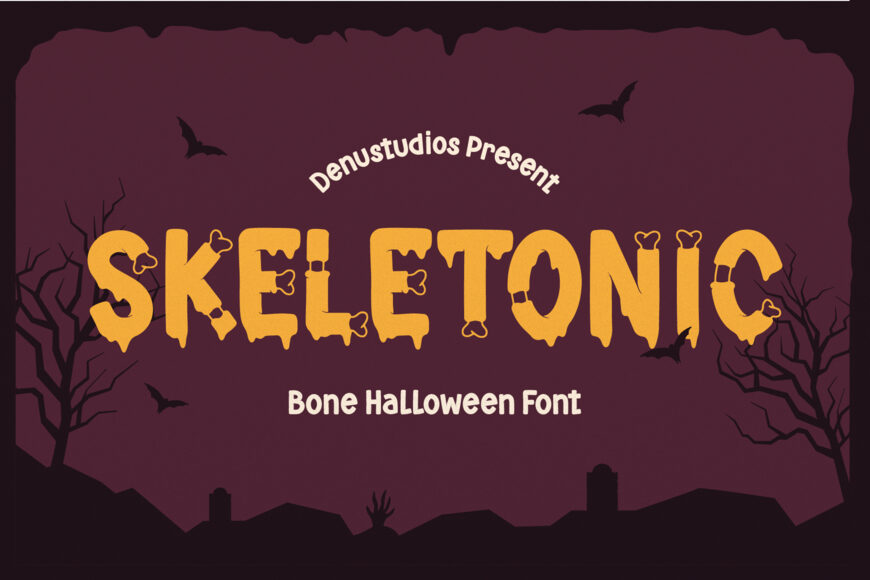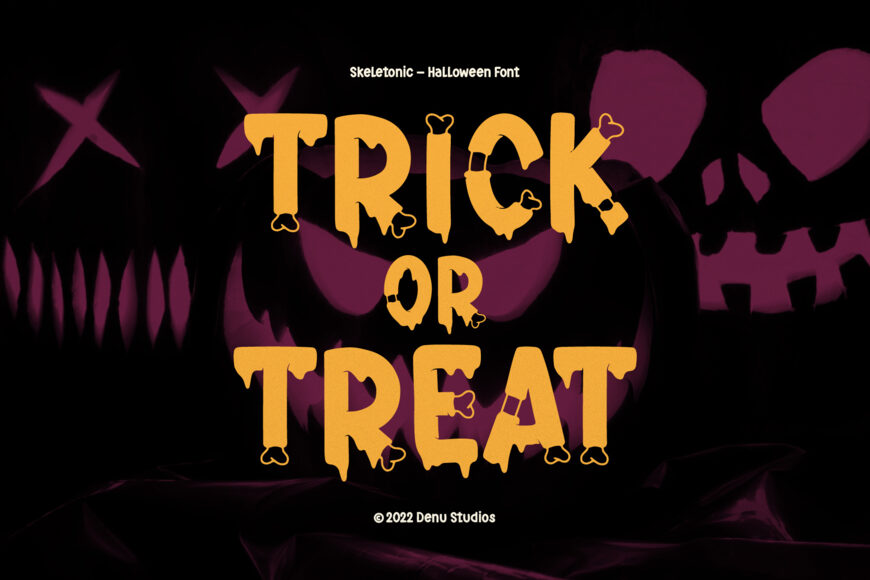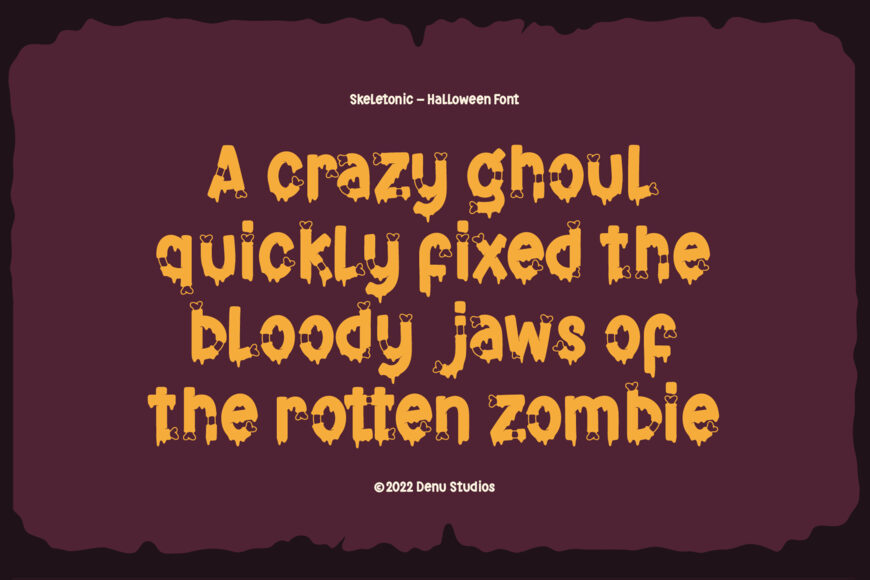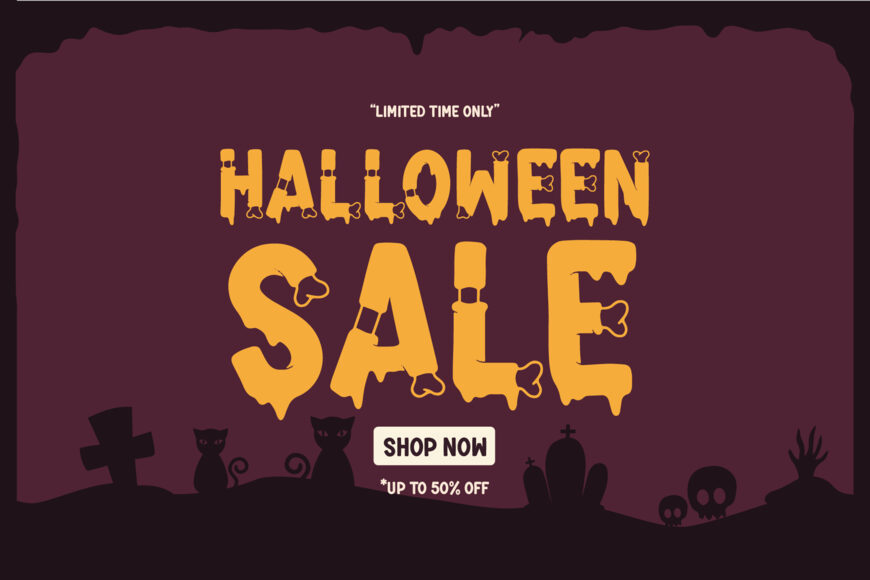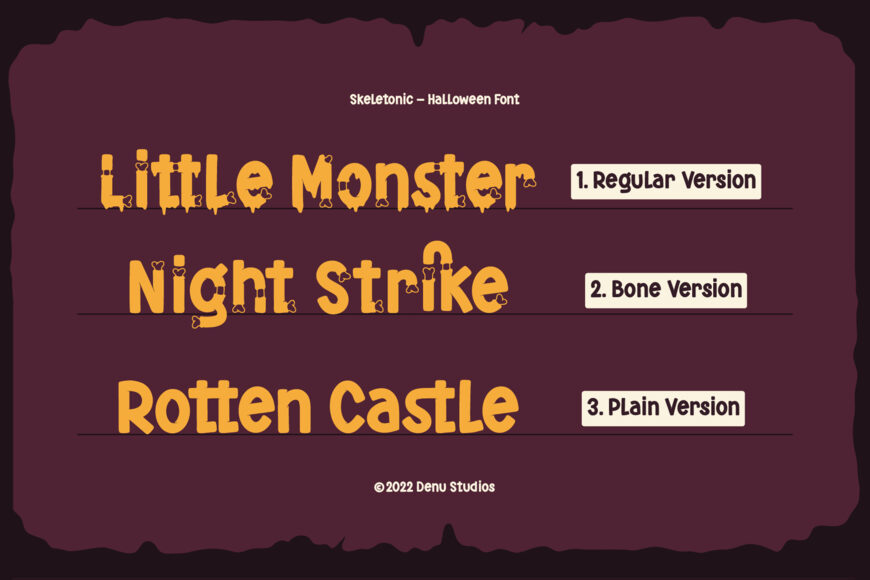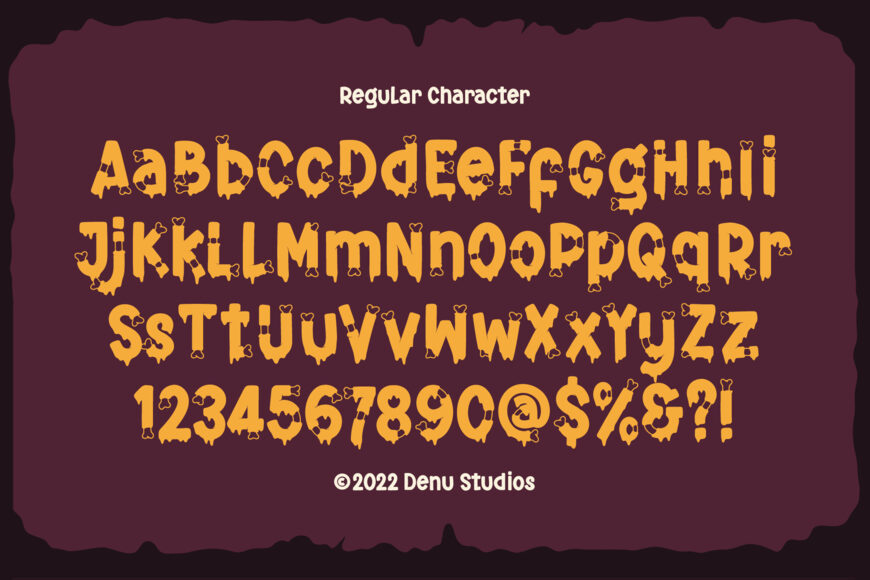
Unearth playful graveyard vibes, spooky seasonal fun, and eye-catching bone-inspired detail with Skeletonic! This bold display Halloween font features chunky letterforms built with stylized bone joints, subtle fractures, and dripping bottom edges. Its whimsical horror aesthetic brings the perfect balance of spooky and fun to every headline, making it an instant favorite for spooky season projects.
Ideal for Halloween party banners, trick-or-treat candy packaging, kids’ horror book covers, haunted house event flyers, cute sticker packs, and custom Cricut or Silhouette craft SVG designs!